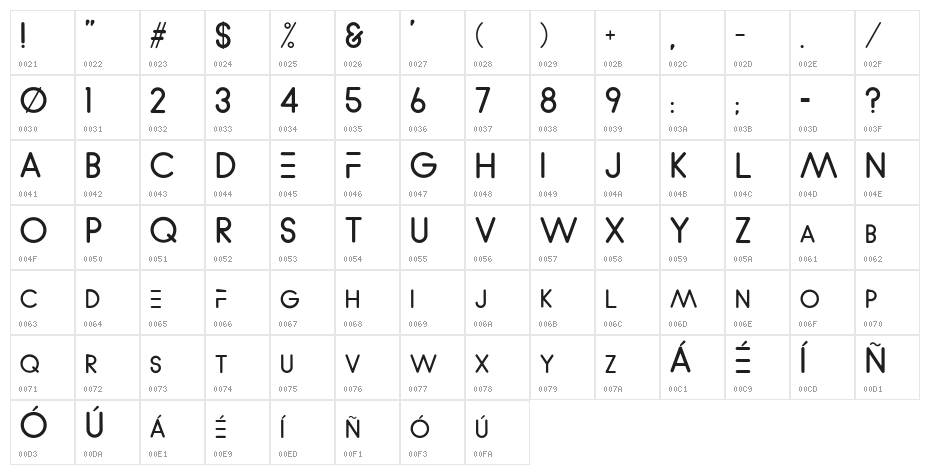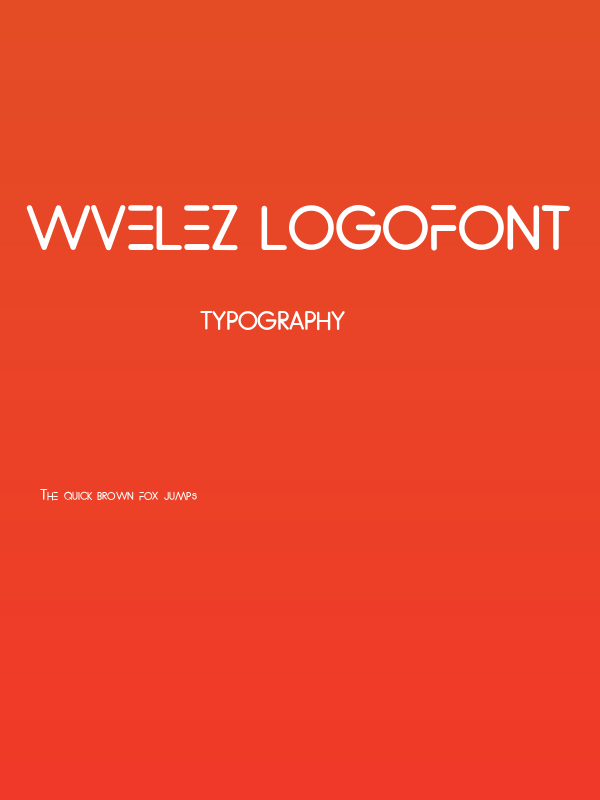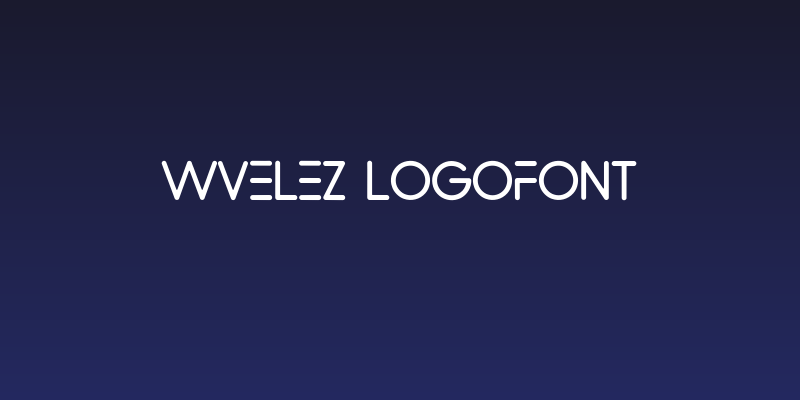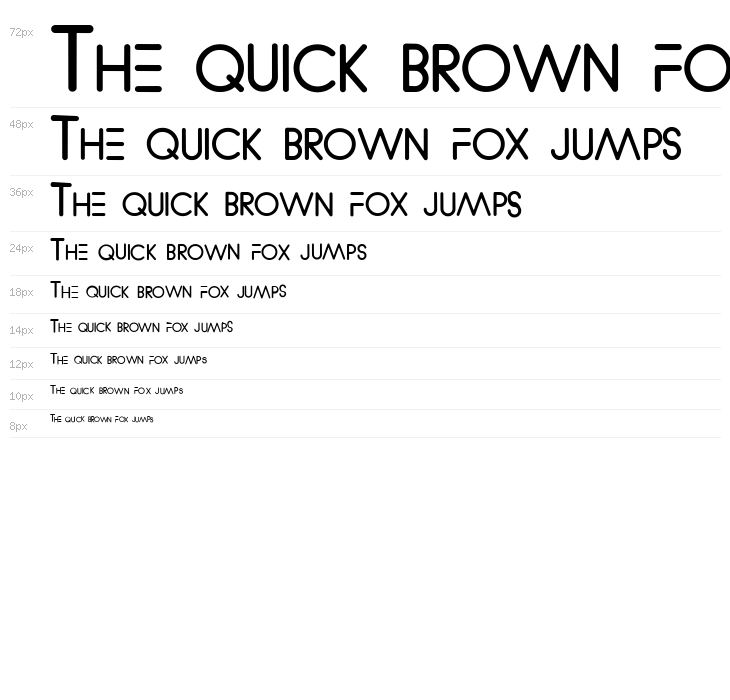
WVelez Logofont Font
WVelez Logofont Description
This font features a modern, geometric design with clean, rounded edges and a consistent stroke width. The uppercase and lowercase letters maintain a uniform appearance, contributing to a cohesive and streamlined look. The numerals and special characters are designed to complement the alphabet, with similar rounded and geometric elements. The font's simplicity and clarity make it highly legible, while its unique style adds a touch of sophistication. The consistent stroke width and lack of serifs give it a contemporary feel, suitable for a variety of design applications.
| Use Case | Logos, Headlines, Digital Interfaces |
| Proposed Projects | Ideal for branding, logos, signage, and digital interfaces where a clean, modern look is desired. |